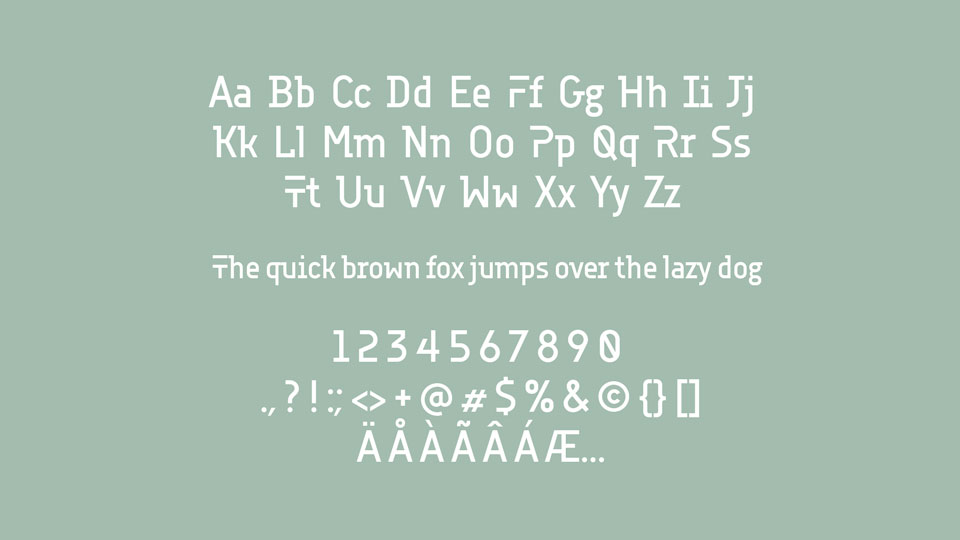
Accuratist is a post humanistic slab serif font. It comes with a full set of glyphs, including extended multilingual support.
Accuratist font looks great for posters, headlines, logotype and branding, covers and other creative typographic projects.